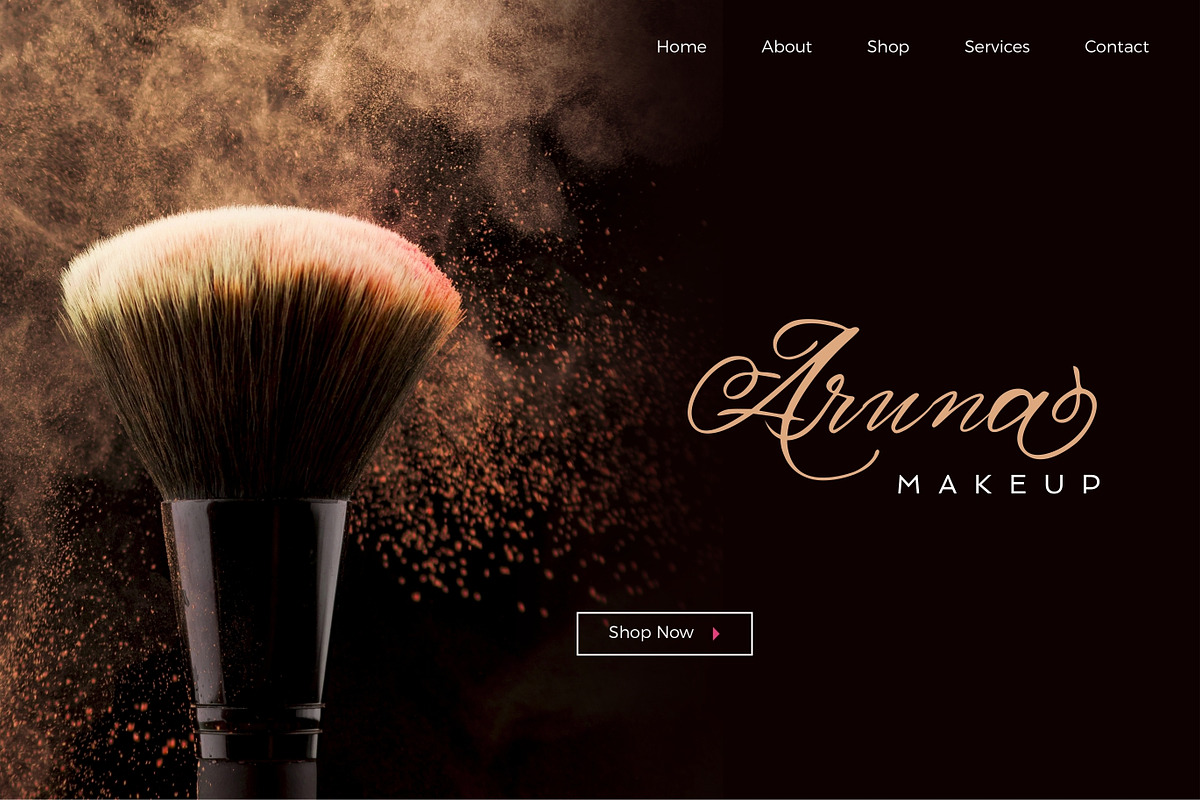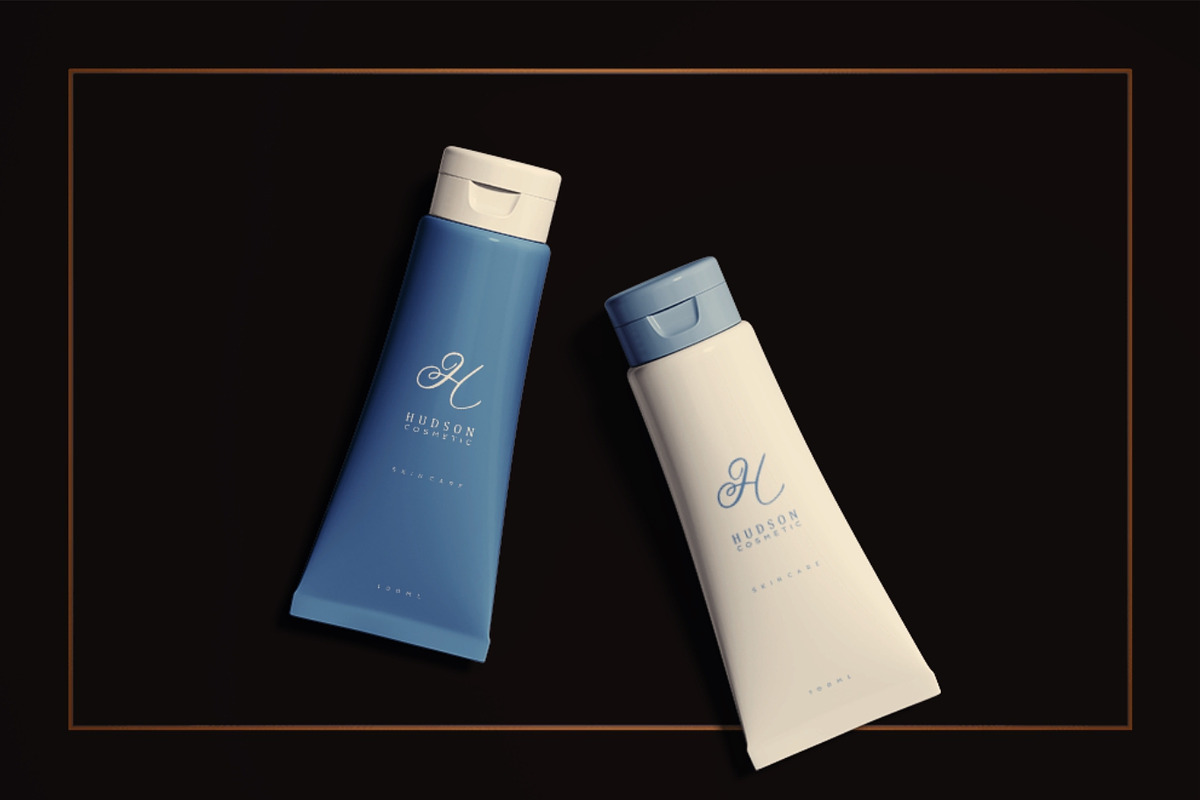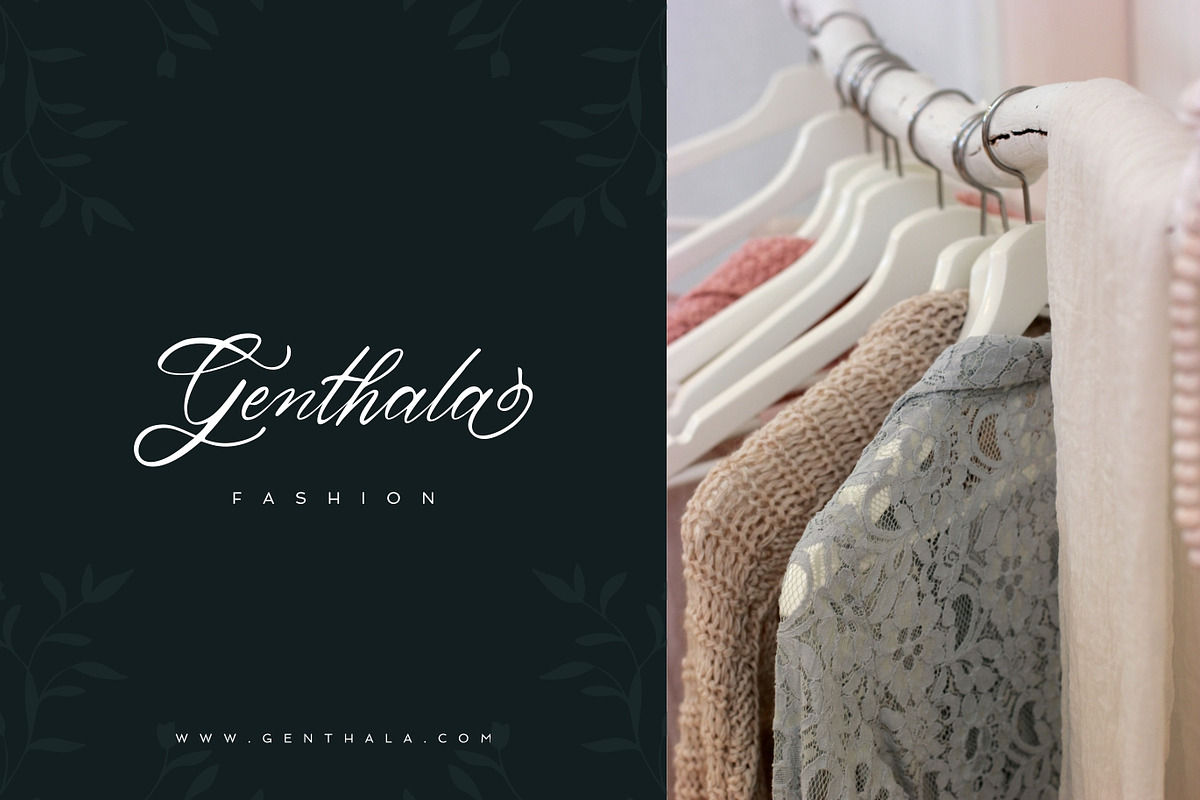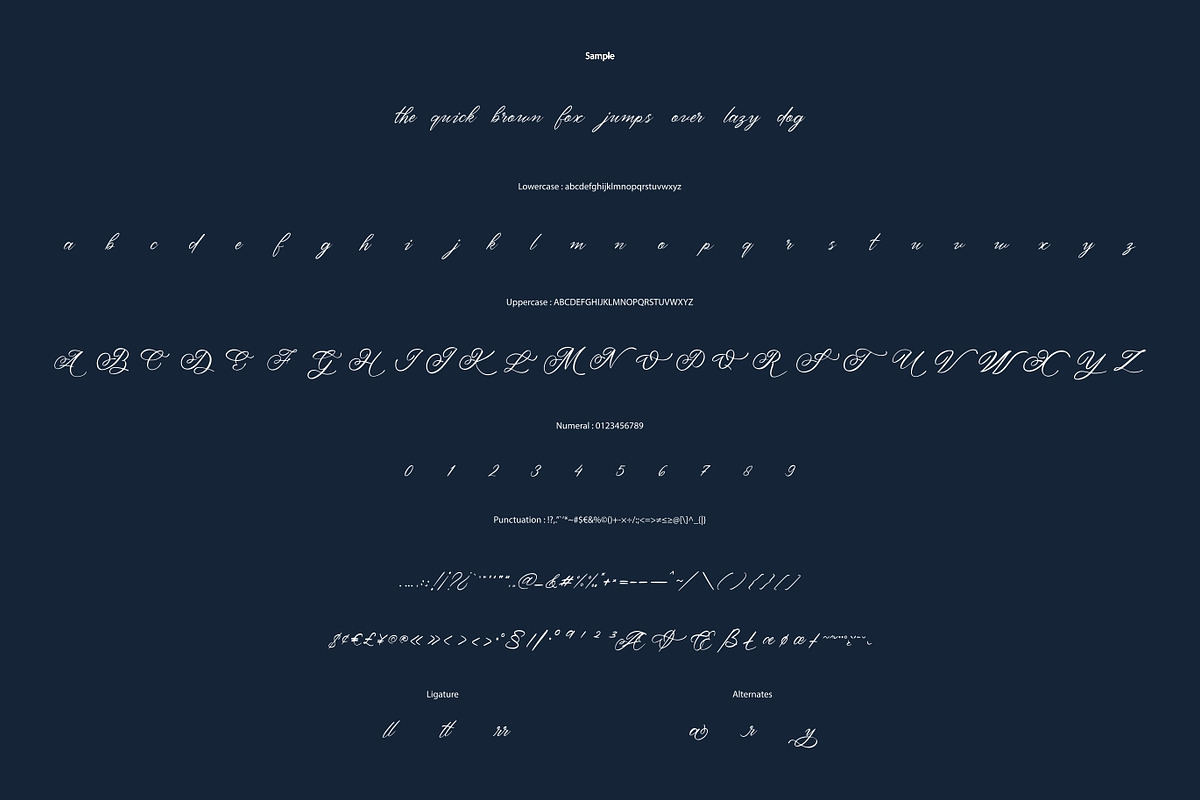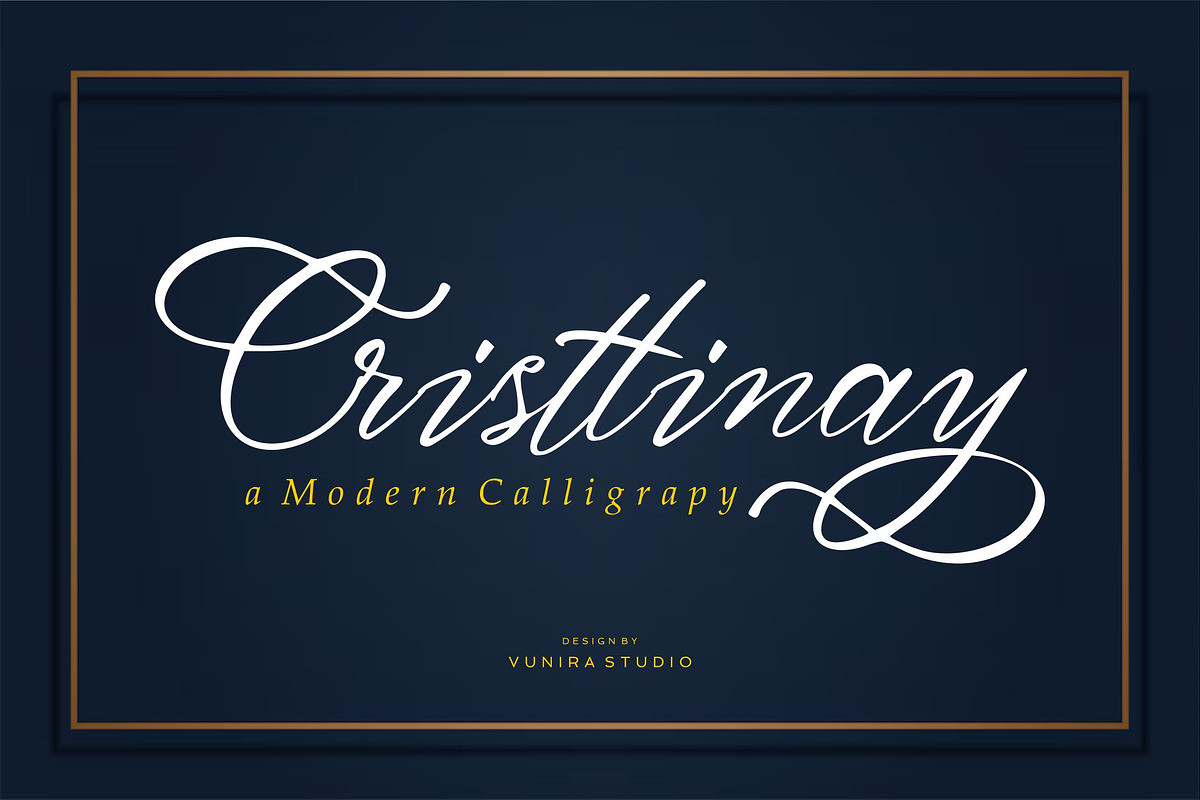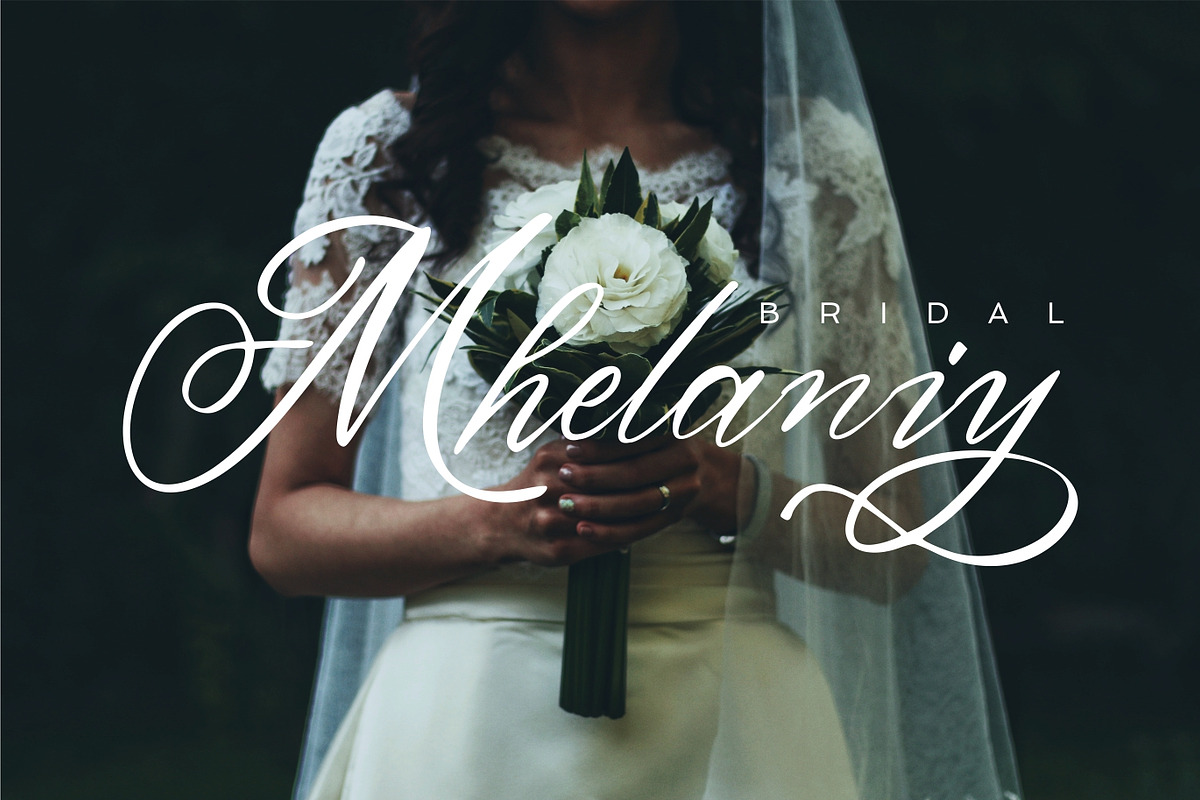
Christtinay - Modern Calligraphy
Christtinay - Modern Calligraphy with a calligraphy style, So beautiful on invitation like greeting cards, branding materials, business cards, quotes, posters, and more!
- Tons of glyphs
- Alternates and Ligatures
- Punctional
- Fonts include Multilingual Support